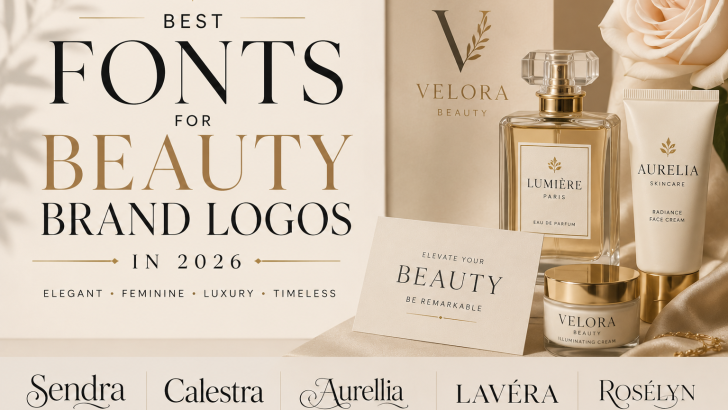
The beauty industry is more competitive than ever. Whether you’re launching a skincare line, cosmetic brand, perfume label, or beauty salon, your visual identity plays a critical role in attracting customers.
One of the most important elements of beauty branding is typography. The right font can instantly communicate elegance, luxury, femininity, and trust. On the other hand, the wrong font can make even premium products look unprofessional.
In this guide, we’ll explore the best fonts for beauty brand logos in 2026 and how to choose typography that elevates your brand.
Why Typography Matters for Beauty Brands
Beauty consumers often make decisions based on visual perception.
Before customers experience your product, they see your:
- Logo
- Packaging
- Website
- Social media presence
Typography helps create a strong first impression and influences how customers perceive product quality.
Luxury beauty brands often use sophisticated serif fonts because they communicate refinement and exclusivity.
Characteristics of Great Beauty Brand Fonts
The best beauty brand fonts usually have:
Elegant Letterforms
Beautiful curves and refined details create a premium feel.
High Readability
Your logo should remain clear across packaging, websites, and social media.
Timeless Appeal
Beauty brands benefit from typography that remains relevant for years.
Premium Personality
The font should support a luxurious customer experience.
Best Font Styles for Beauty Brand Logos
Modern Serif Fonts
Modern serif fonts continue to dominate beauty branding in 2026.
Perfect for:
- Skincare brands
- Luxury cosmetics
- Perfume labels
- Premium beauty clinics
Elegant Display Fonts
Display fonts help brands stand out while maintaining sophistication.
Ideal for:
- Product packaging
- Marketing campaigns
- Premium collections
Minimalist Sans Serif Fonts
Many contemporary beauty brands combine elegant serif logos with clean sans serif typography.
This creates a modern and professional brand image.
High-Contrast Serif Fonts
Inspired by fashion magazines and luxury brands, high-contrast serif fonts communicate exclusivity and sophistication.
Beauty Branding Trends in 2026
Several typography trends are shaping the beauty industry:
Luxury Minimalism
Simple typography paired with generous white space remains highly effective.
Editorial-Inspired Logos
Many beauty brands now use typography inspired by premium fashion publications.
Custom Typography
Unique letterforms help brands differentiate themselves in crowded markets.
Serif and Sans Pairing
Combining serif elegance with sans serif simplicity creates visual balance.
Common Typography Mistakes
Avoid these mistakes:
- Using trendy fonts that quickly become outdated
- Choosing decorative fonts with poor readability
- Using too many typefaces
- Ignoring mobile readability
- Selecting fonts that don’t match brand positioning
How to Choose the Right Beauty Font
Ask yourself:
- Who is my target customer?
- Is my brand luxurious or affordable?
- Will the font work on packaging?
- Does the typography reflect my brand personality?
The answers will guide your font selection.
Final Thoughts
The right typography can transform an ordinary beauty brand into a memorable and premium experience. Whether you’re creating a skincare line, cosmetic company, perfume brand, or beauty studio, choosing the right font is an investment in your brand’s future.
Focus on elegance, readability, and timeless design. The best beauty brand logos combine strong branding strategy with carefully selected typography that customers instantly recognize and trust.